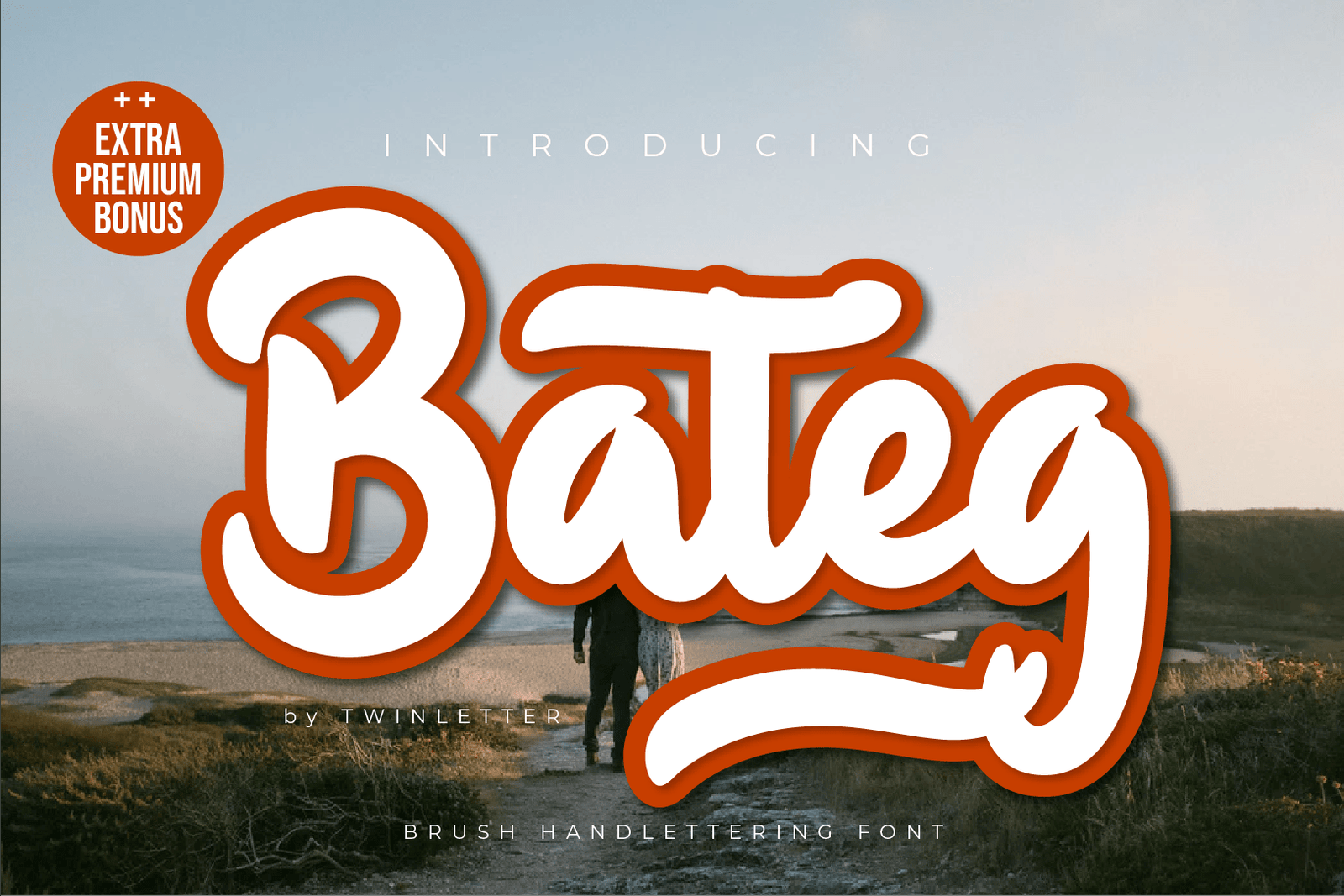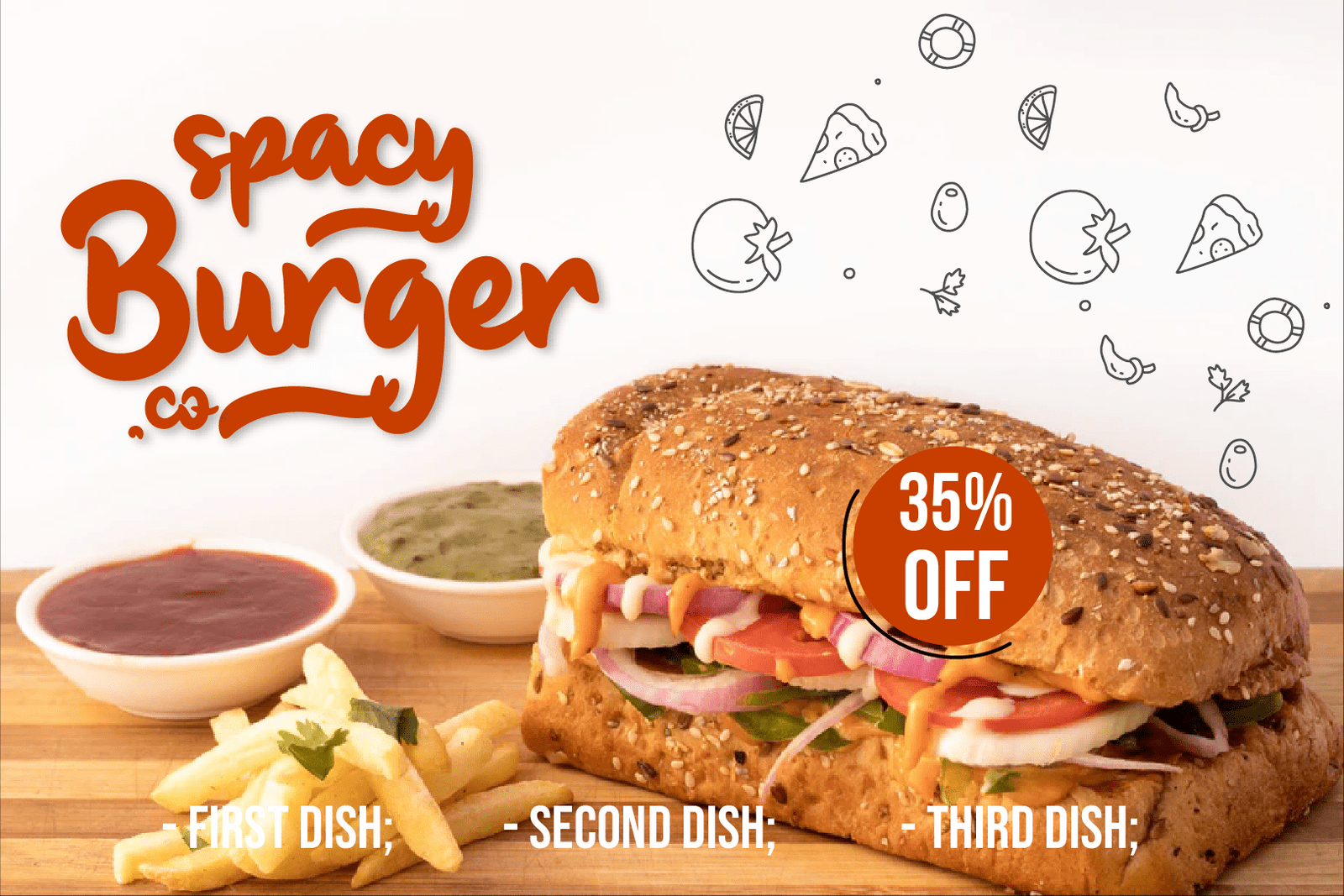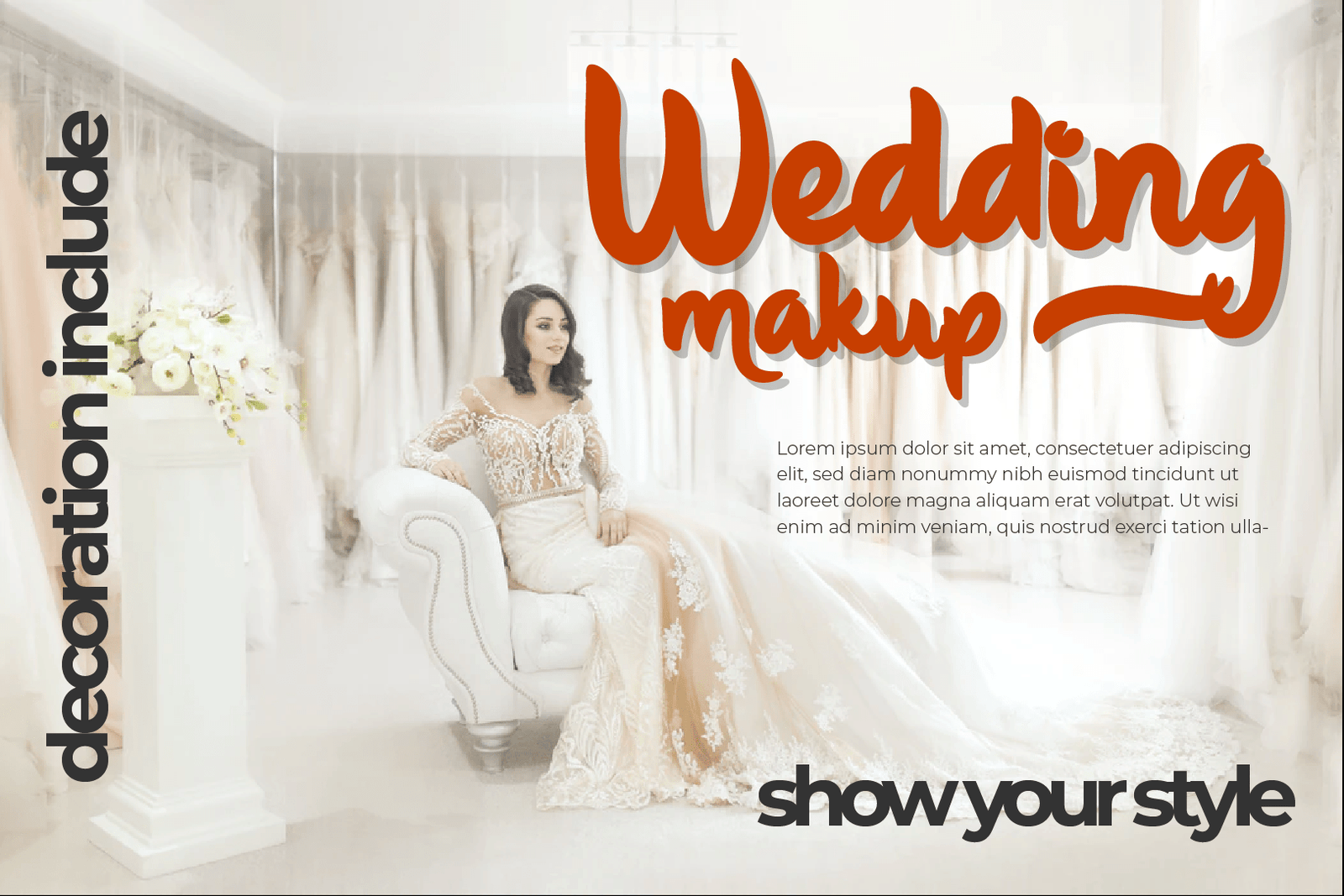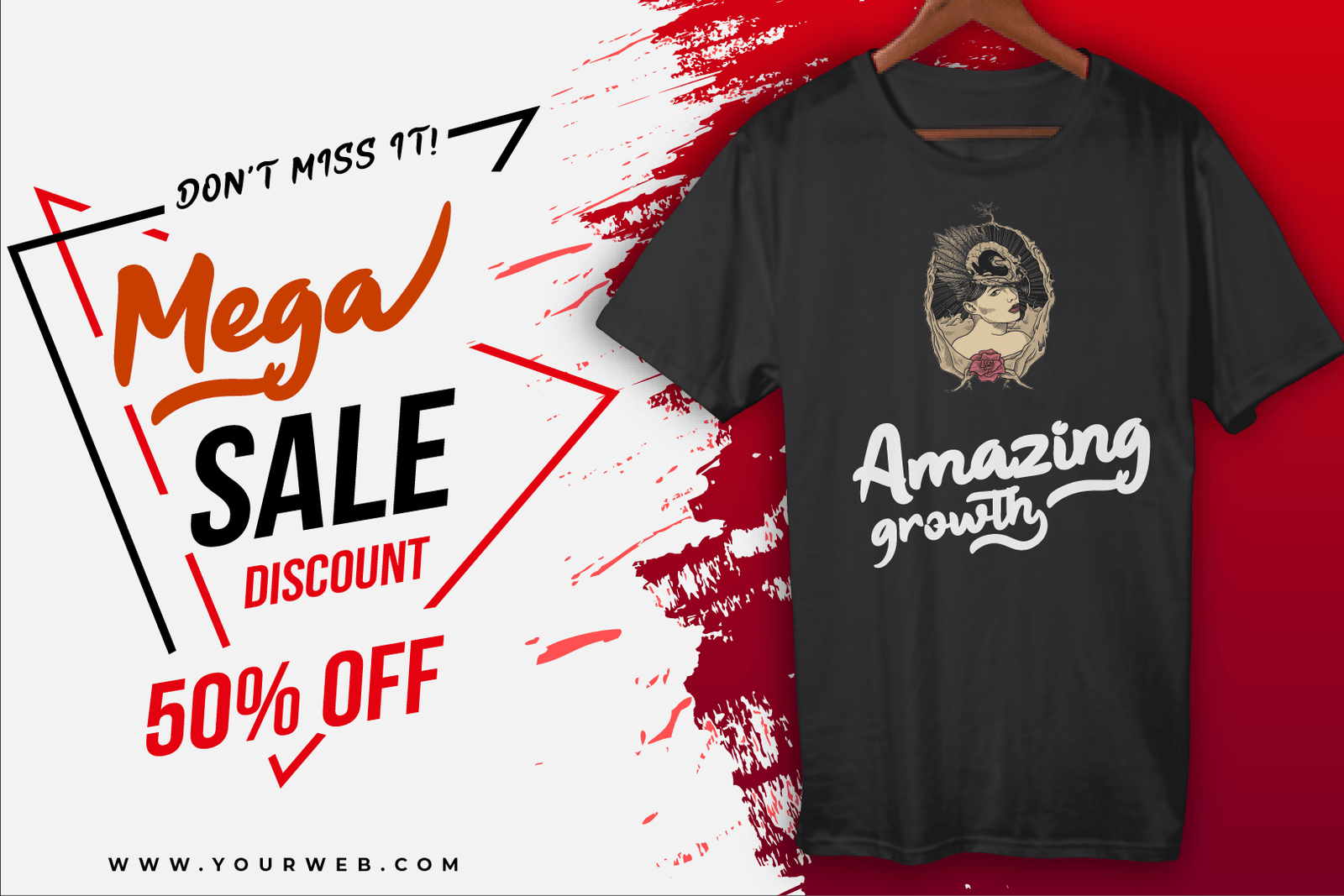
Bateg
Introducing our newest Font, Bateg
This font offers beautiful abstract typographic harmony for a wide variety of design projects, including natural handwriting in digital form for designs, quote designs, for social media business designs, advertisements, trademarks, promotional banners, posts, posters, signatures, and all. the design requires handwriting or whatever design you want. Start creating awesome designs with this font!
This charming font also offers the beauty of abstract typography harmony for a wide variety of design projects, including digital natural handwriting for designs, quote designs, for social media business designs, advertisements, trademarks, food and beverage promotion banners, text, posters, a signature, and all designs require handwriting or whatever design you want.
Bateg bytwinletter